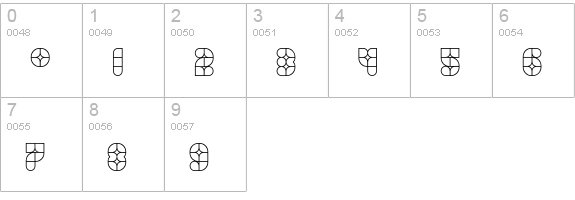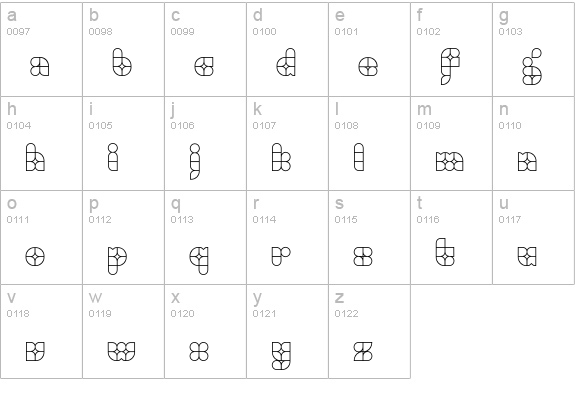
Stadia-Outline Font Details
Introducing Stadia-Outline Font, a sleek and modern typeface that will elevate your designs to new heights. With its clean lines and geometric shapes, this font exudes a sense of sophistication and professionalism. Whether you're creating a logo, designing a website, or crafting a captivating poster, Stadia-Outline Font is the perfect choice to make your text stand out. One of the best features of Stadia-Outline Font is that it is free to download at FontsMarket.com. Yes, you read that right - this incredible font can be yours without spending a penny. Say goodbye to expensive font licenses and hello to creative freedom. With Stadia-Outline Font, you have the opportunity to add a premium touch to your projects without breaking the bank. But don't let its price tag fool you. Stadia-Outline Font is a high-quality typeface that has been carefully crafted with attention to detail. Its precise outlines and balanced letterforms ensure legibility and readability, even at smaller sizes. This makes it versatile for both print and digital mediums, allowing you to use it in a variety of design projects. Whether you're a seasoned designer or just starting out, Stadia-Outline Font is incredibly user-friendly. Its straightforward design makes it easy to incorporate into your existing workflows, saving you time and effort. With its extensive character set, including punctuation marks and special symbols, you'll have everything you need to bring your design concepts to life. So why wait? Download Stadia-Outline Font today at FontsMarket.com and unlock a world of possibilities for your creative projects. Express your unique style, captivate your audience, and make a lasting impression with this exceptional font. With Stadia-Outline Font by your side, your designs will never be the same again.